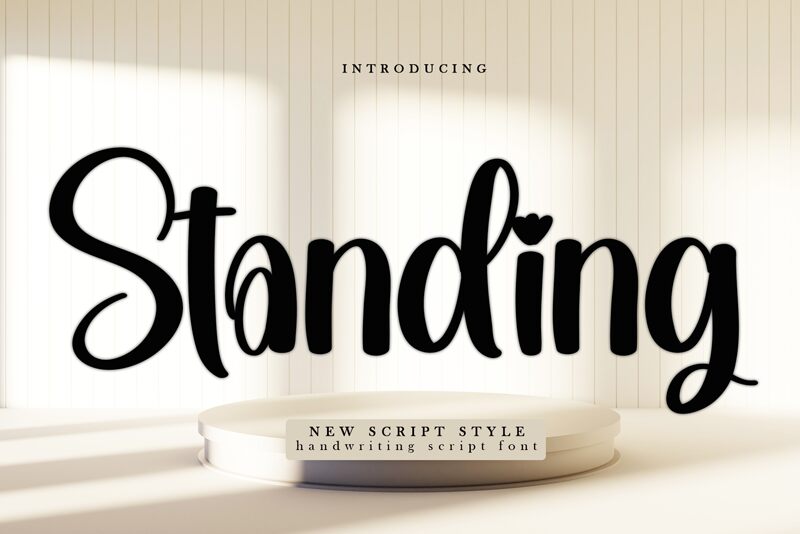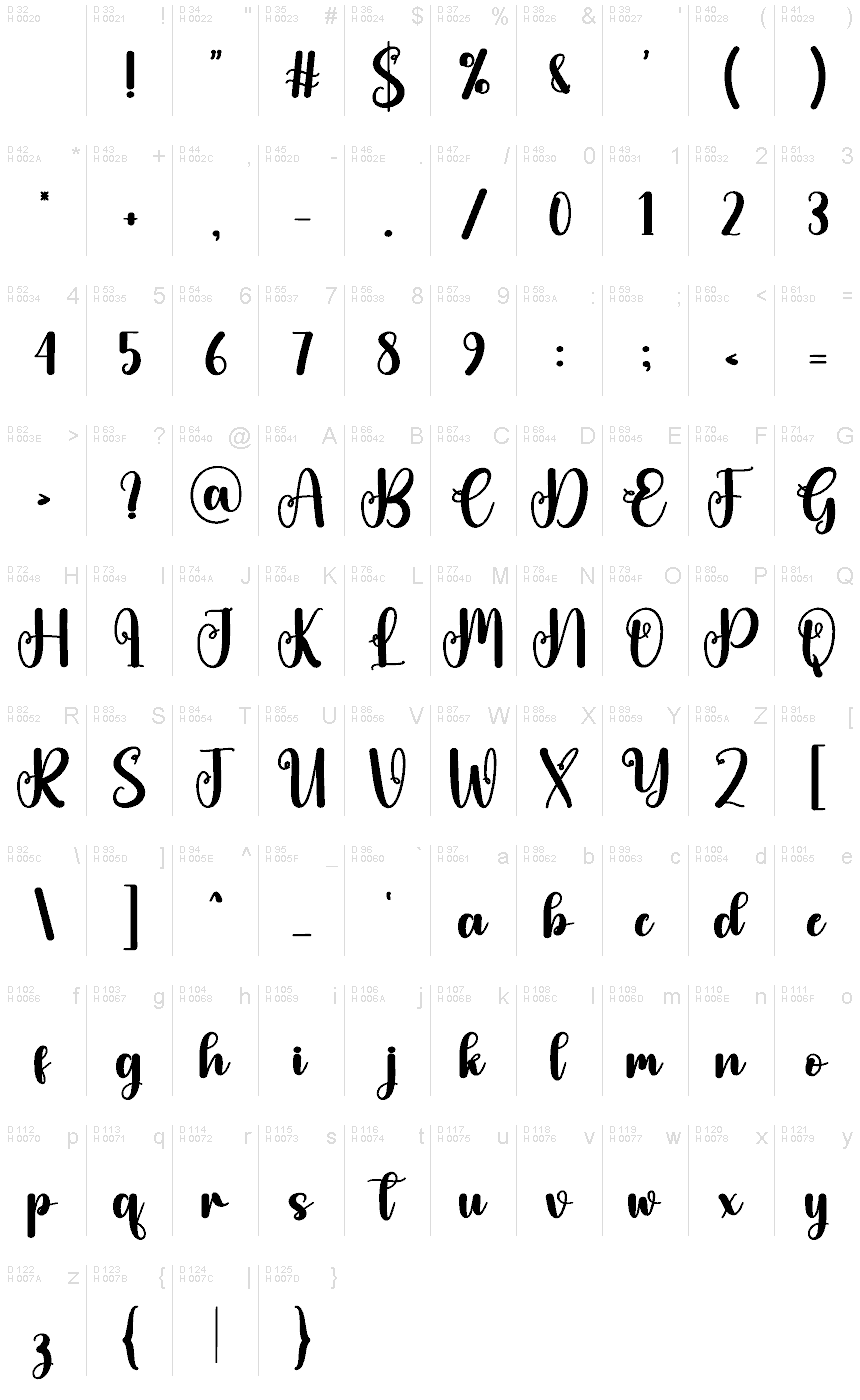
Standing
Standing font by Scratchones is a brush masterpiece that combines flowing, elegant lines with modern script flair. The expressive loops and decorative elements infuse a casual elegance into any design, creating a warm and approachable feel. Historically inspired by calligraphy, it seamlessly fits contemporary settings with its versatile charm.